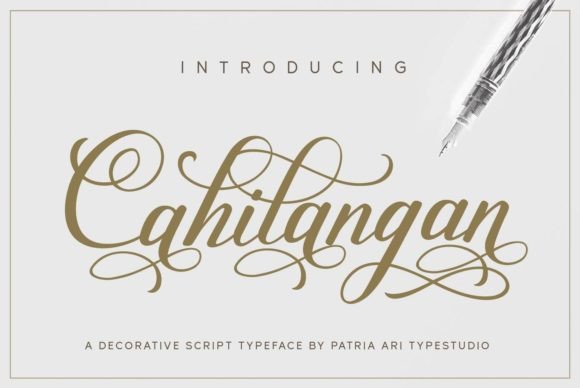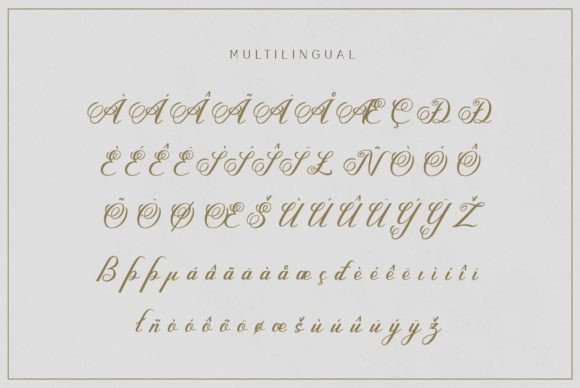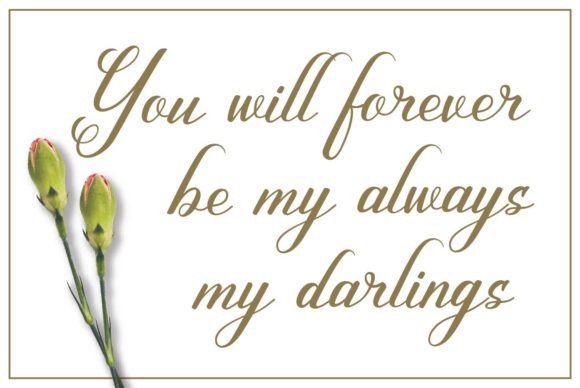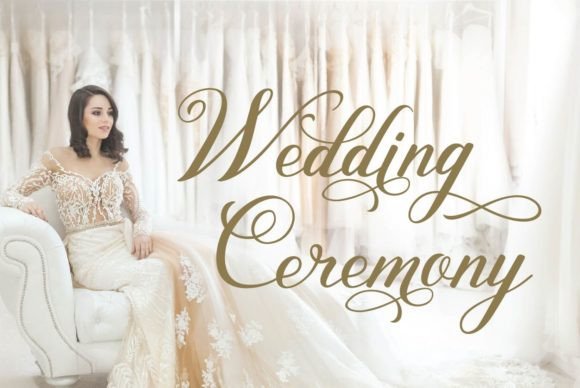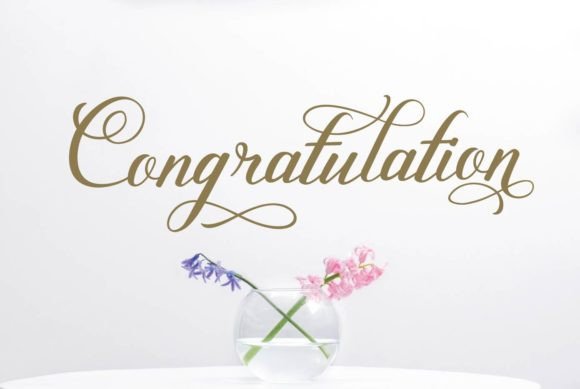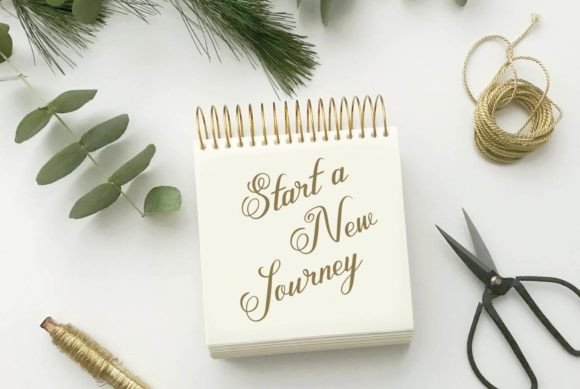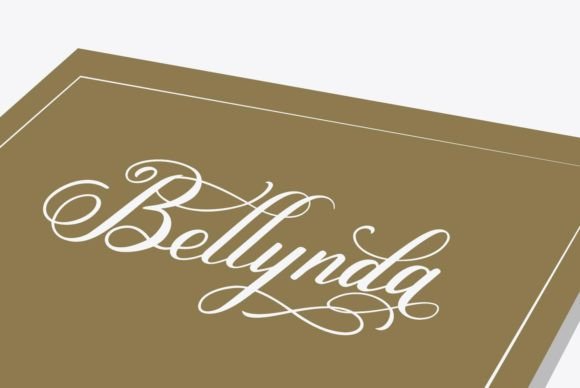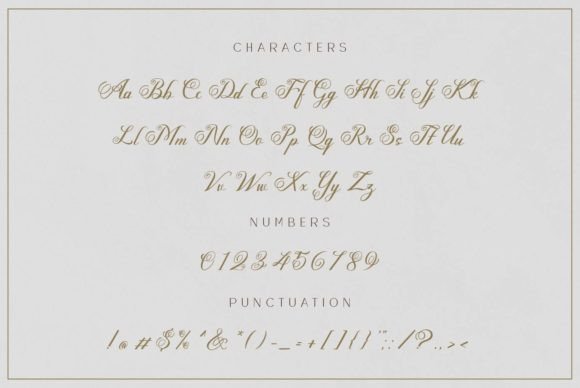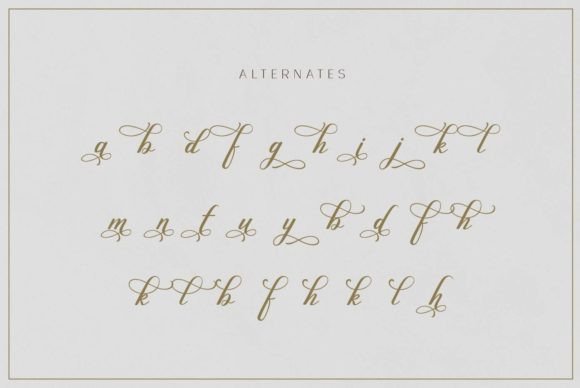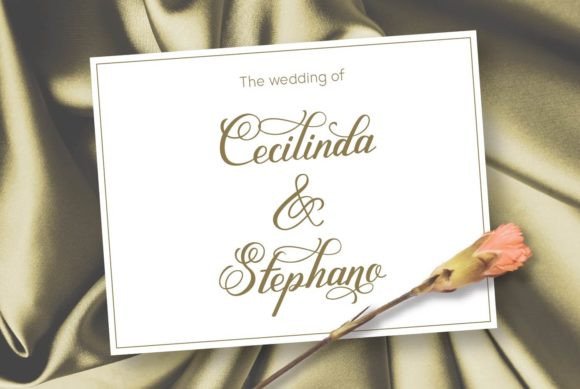
Cahilangan Font
About Cahilangan Font
“Cahilangan” is a delicate and well-rounded handwritten font, tailor-made for crafty projects that require authentic typography. Whether you’re working on wedding invitations, birthday cards, personal branding, elegant logos, or any other design, Cahilangan is designed to make your creations stand out with its delicate and genuine aesthetic.
The delicate strokes and well-rounded characters of Cahilangan contribute to its timeless appeal. This font brings a sense of authenticity and craftsmanship to your projects, creating a personalized and warm atmosphere.
Incorporate Cahilangan into your crafty projects to witness how it elevates your designs. Let it be the font that adds a delicate and authentic flair, making your creations not only visually appealing but also uniquely charming. Whether used for headlines, logos, or other design elements, Cahilangan becomes a valuable asset for infusing your projects with a touch of genuine typography.